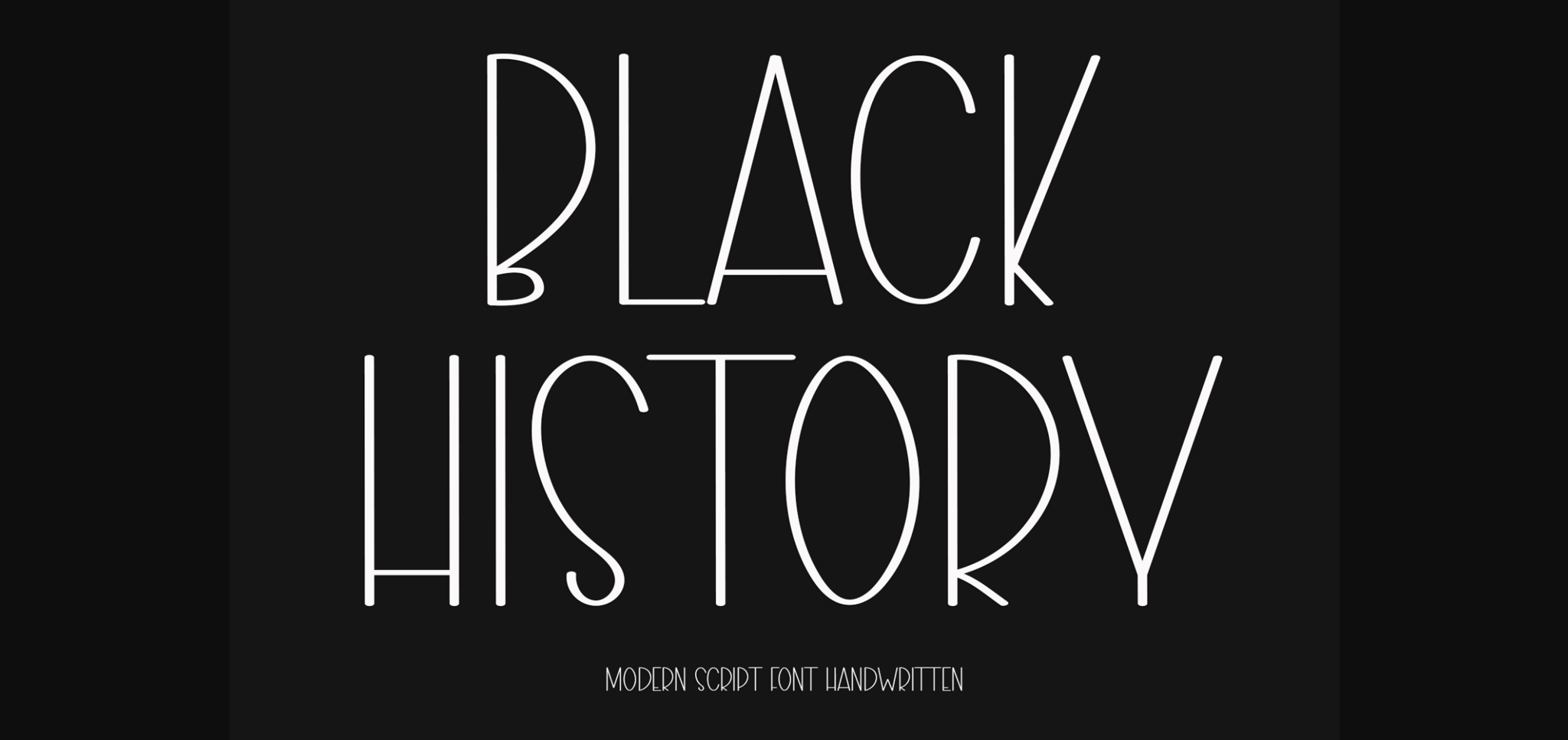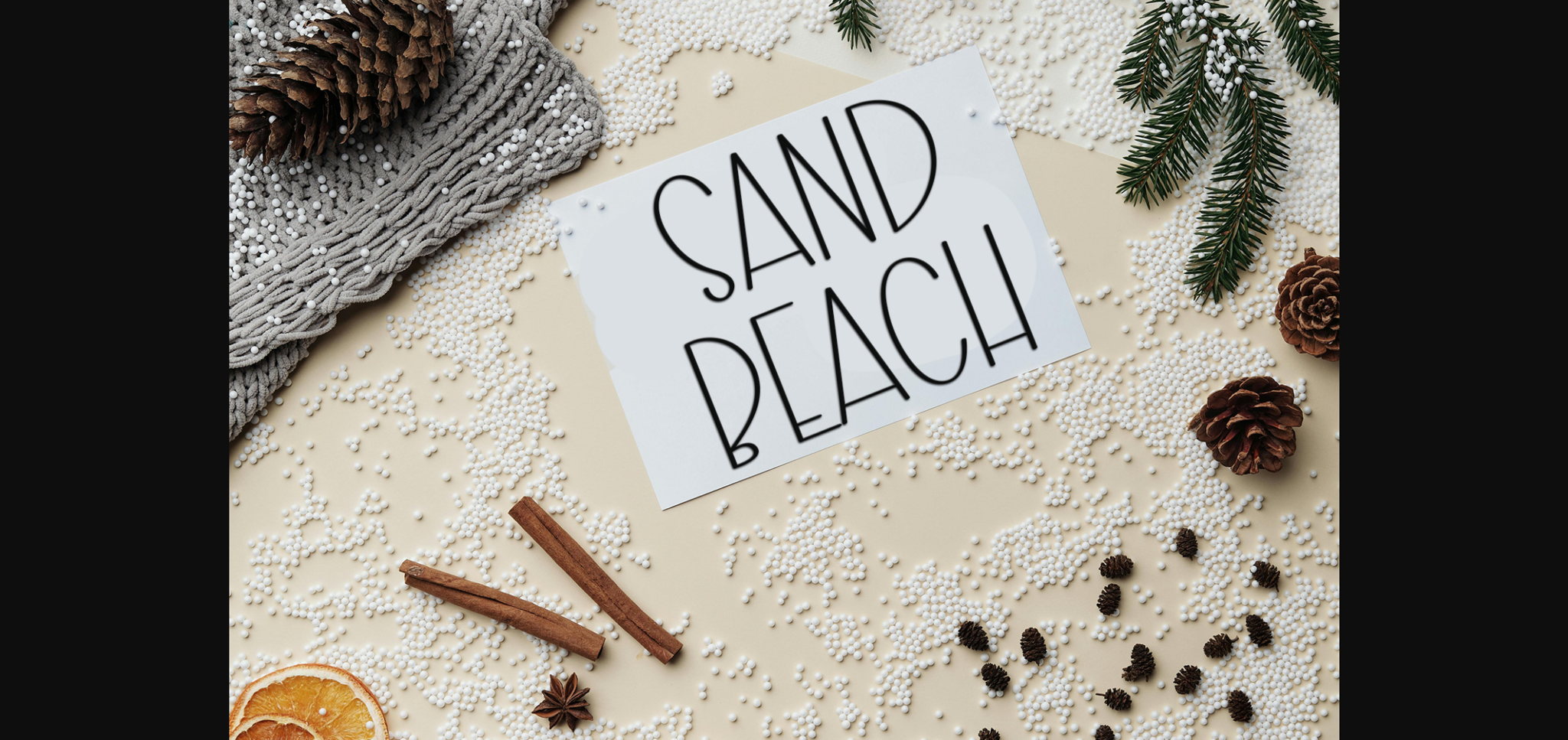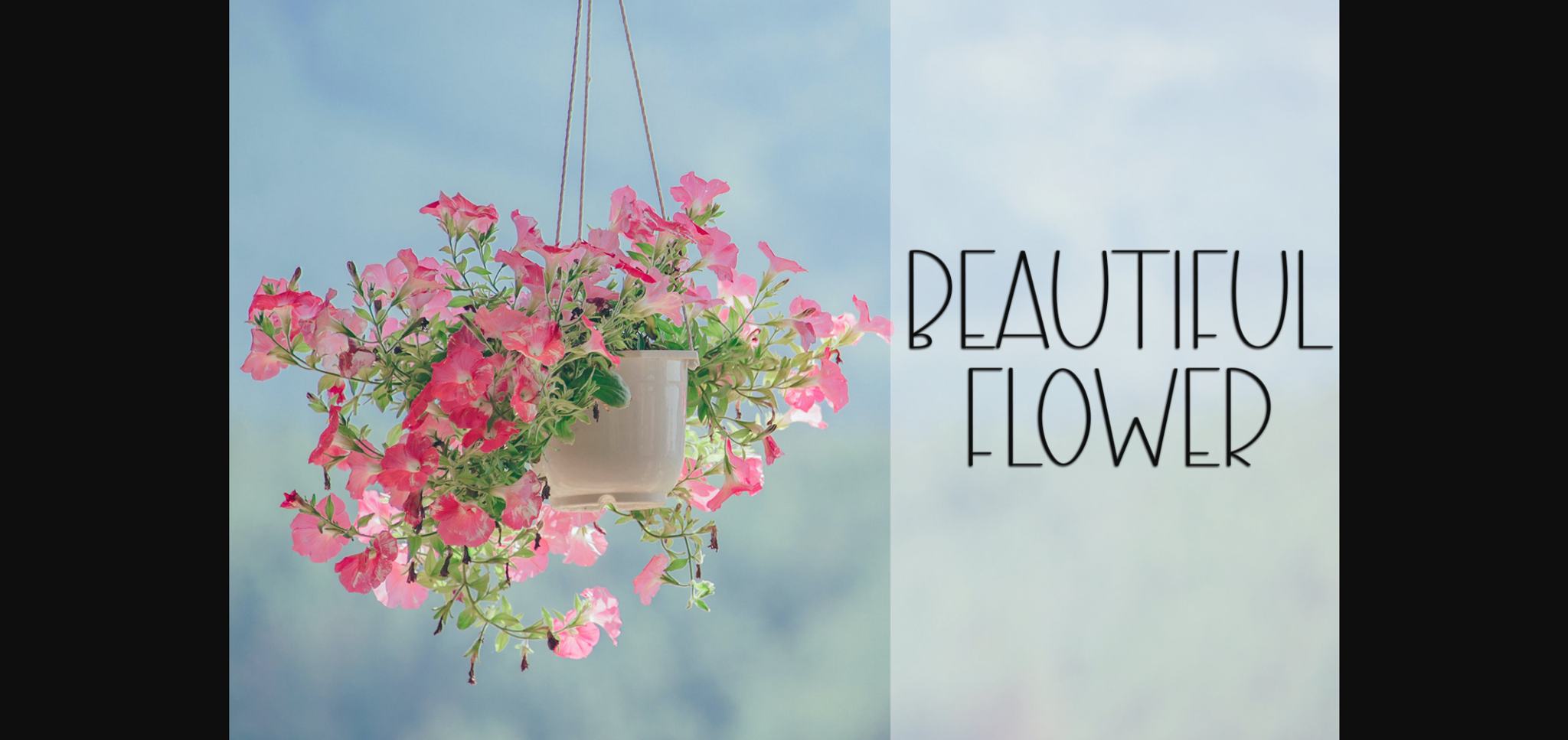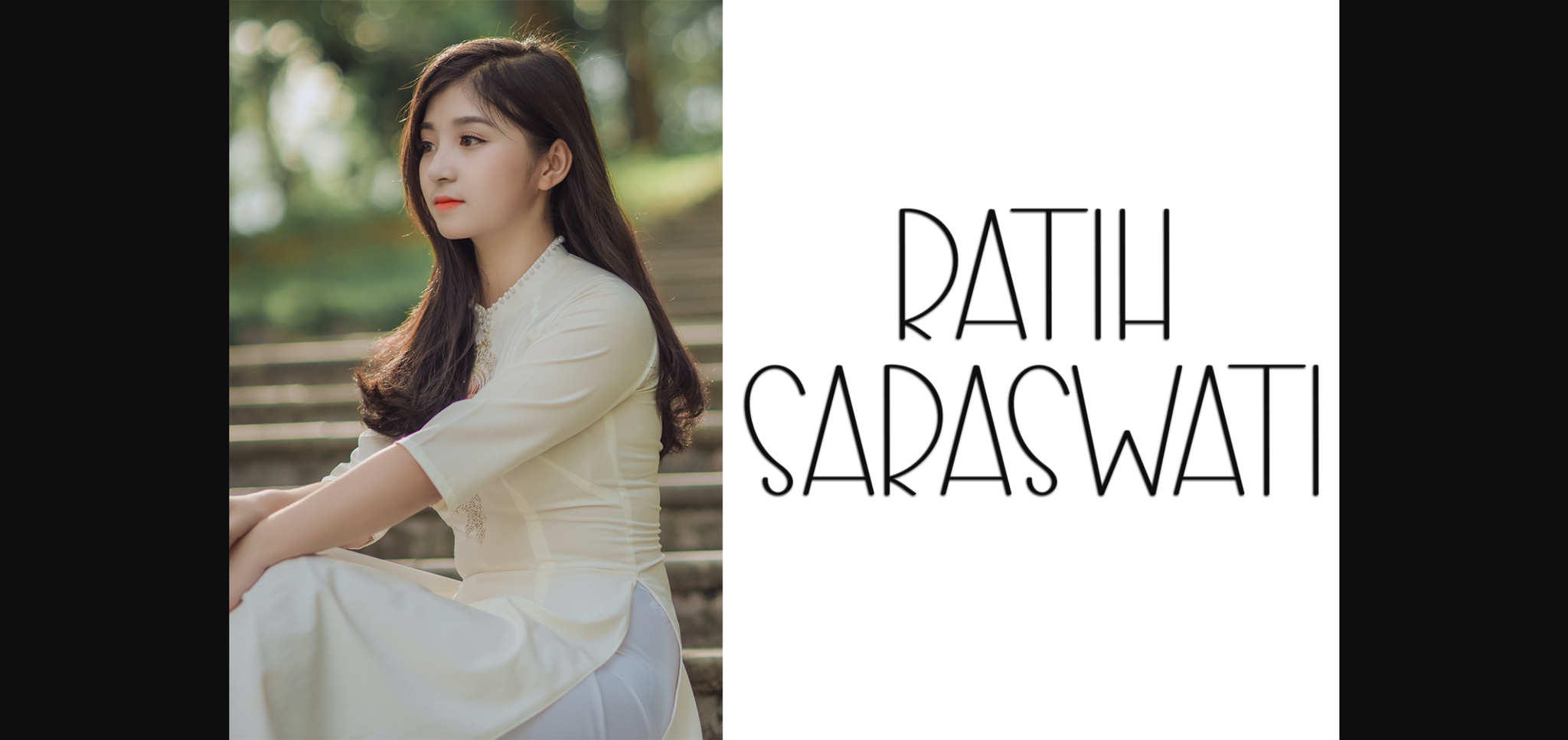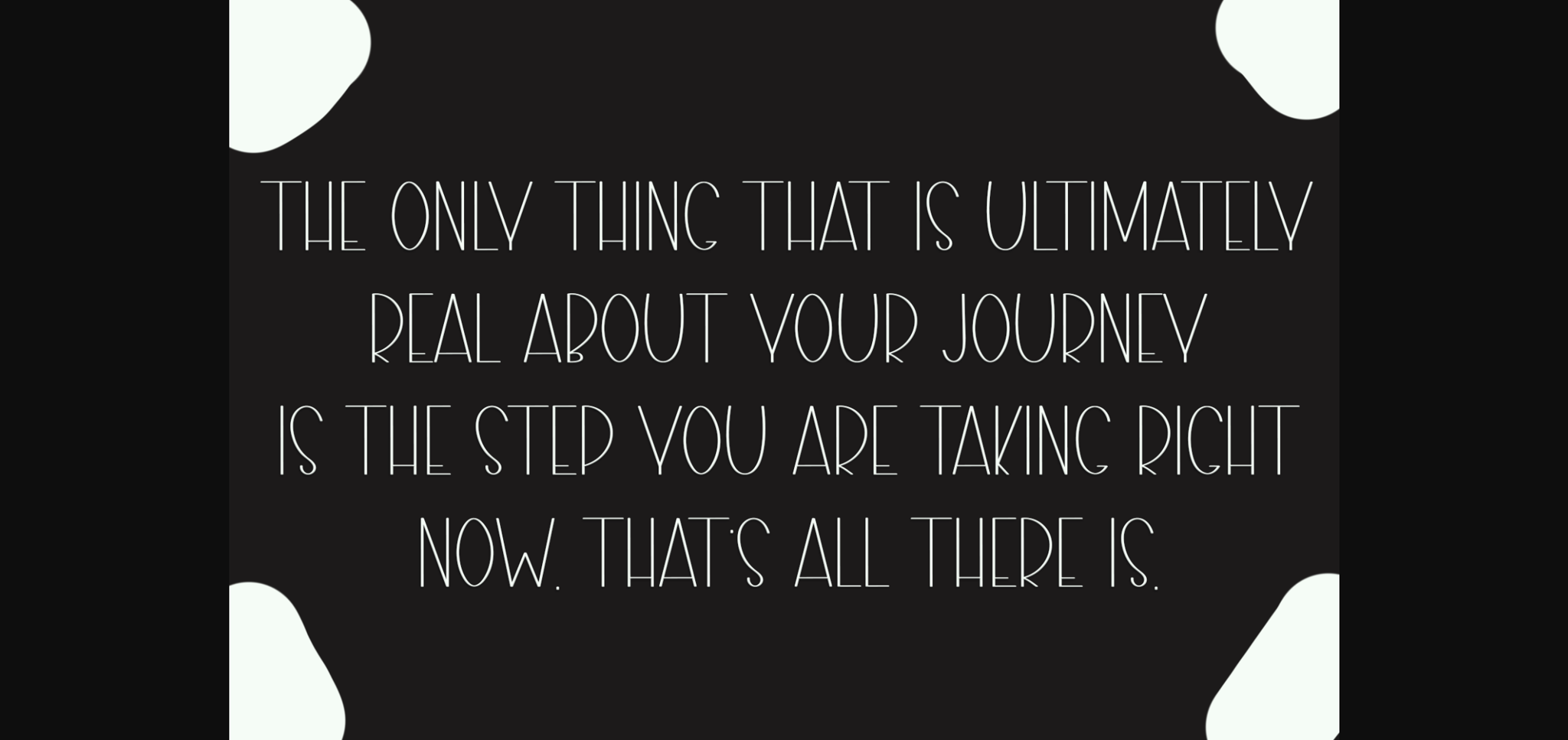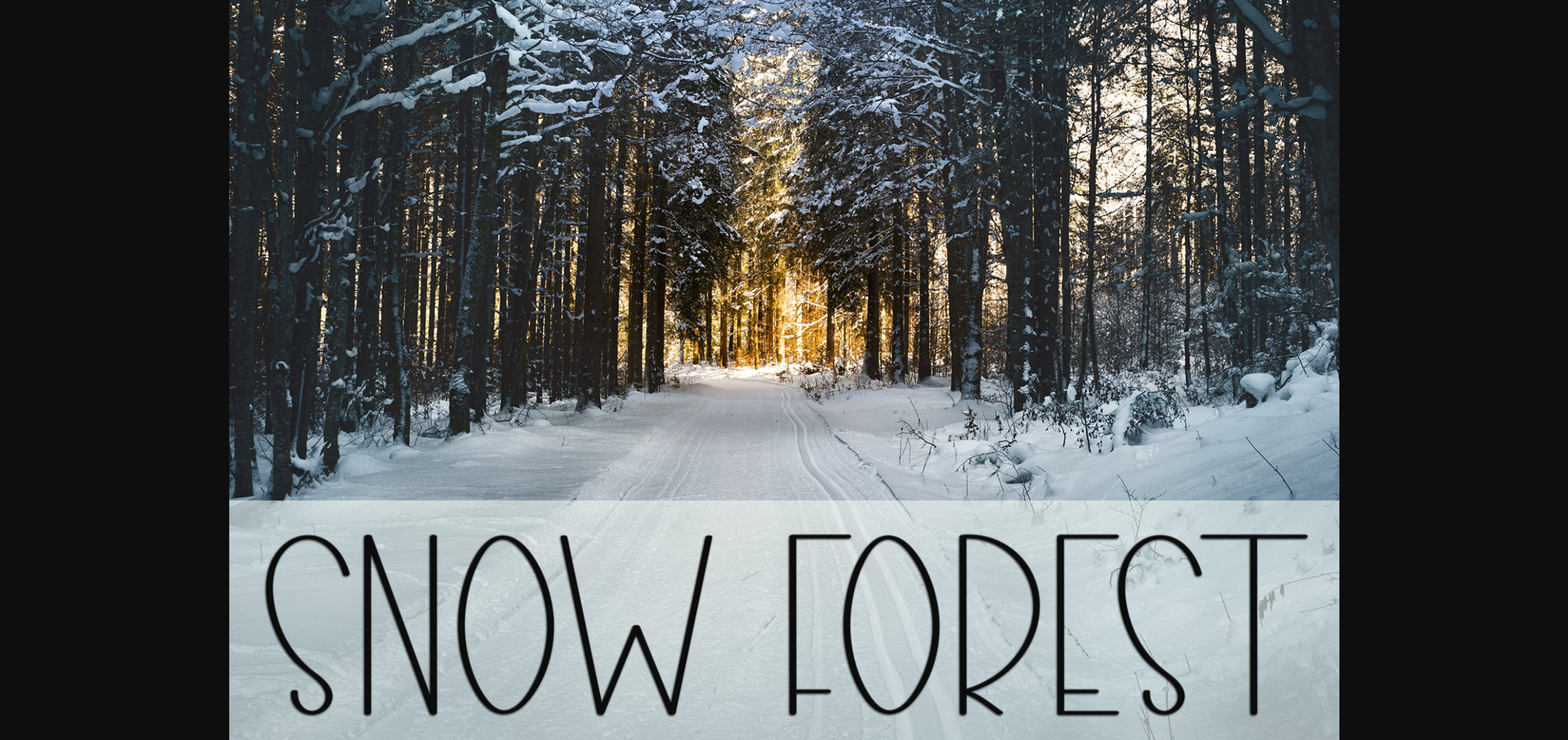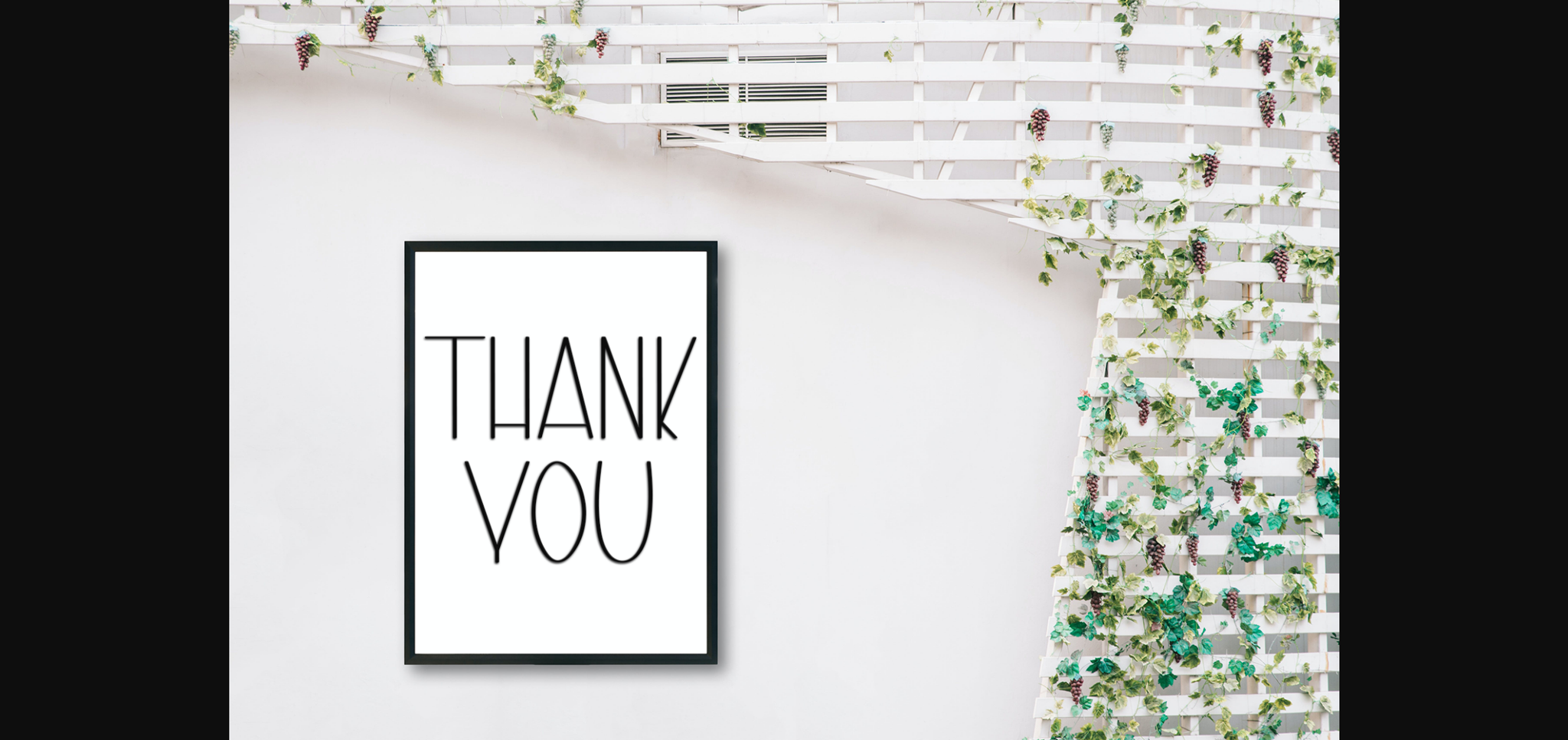
HomeSans Serif FontsBlack History Font Sans Serif Fonts Black History Font FacebookXPinterestWhatsApp 1 of 9 ... Black History Font Poster 2... Black History Font Poster 3... Black History Font Poster 4... Black History Font Poster 5... Black History Font Poster 6... Black History Font Poster 7... Black History Font Poster 8... Black History Font Poster 9... About Black History Font Black History is a simple and casual sans-serif font with an undeniably clean feel. With its neat and beautiful arrangement of letters, this typeface will look outstanding in both formal and non-formal designs. DOWNLOAD NOW People also explored Jungle Cruise Font Campaign Denmahis Script Font Fabia Font Rhapsody Monera Calm Font Kabeh Black Font Noir Mitchell Font 286 0 TagsBlack History Font Previous articleSimple Planner FontNext articleSignature Font LEAVE A REPLY Cancel reply Comment: Please enter your comment! Name:* Please enter your name here Email:* You have entered an incorrect email address! Please enter your email address here Website: Save my name, email, and website in this browser for the next time I comment. Personal Use Free Kensin Personal Use Free Read more about this font Pumpkin Type Halloween Font Personal Use Free Read more about this font Roland Personal Use Free Read more about this font Bolt Electric Personal Use Free Read more about this font BLOG How to Install and Use Fonts on Windows, macOS, and Web Projects How to Install and Use Fonts on Windows, macOS, and Web Projects Fonts are a crucial part of design and branding. Whether you’re designing a... Elegant Wedding Invitation Fonts – Handwritten & Script Fonts Where to Buy American Fonts Online in 2024 Free vs Paid Fonts: Why Investing in Premium Fonts Is Worth It